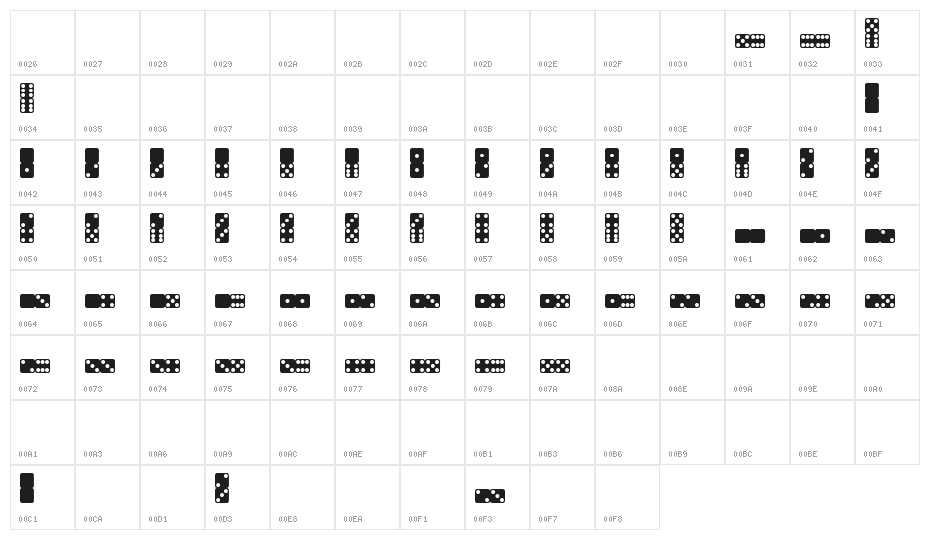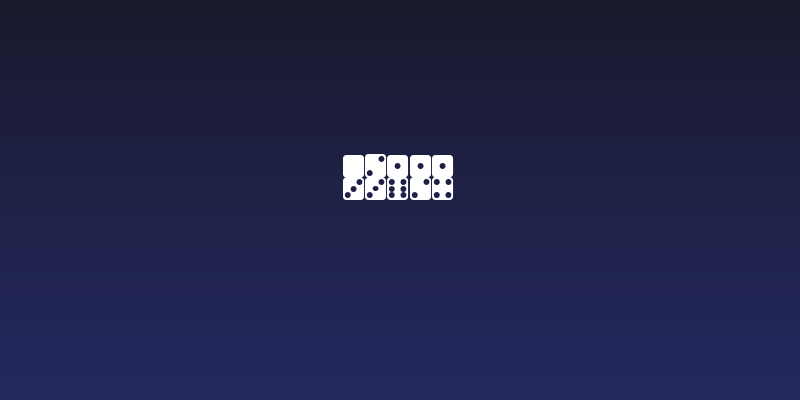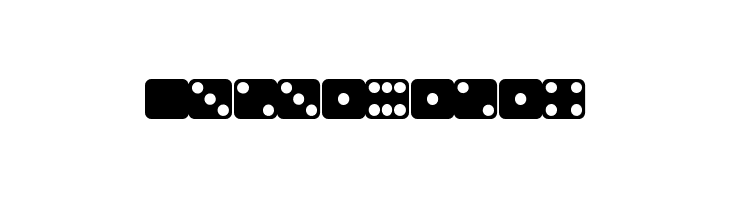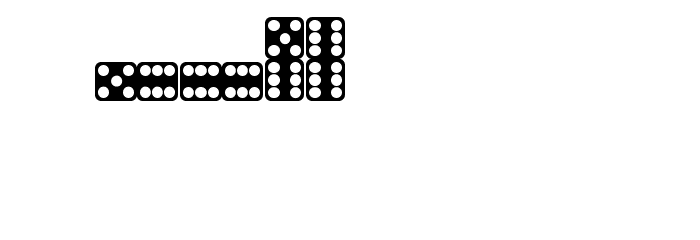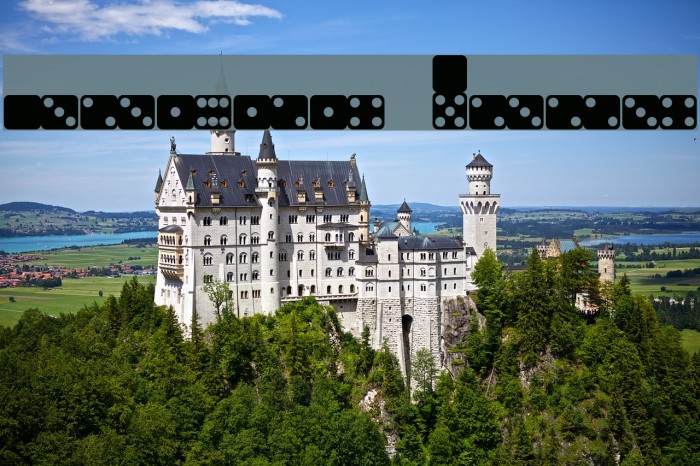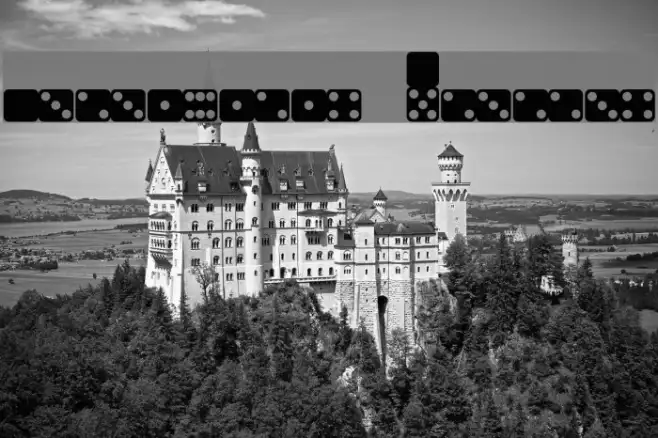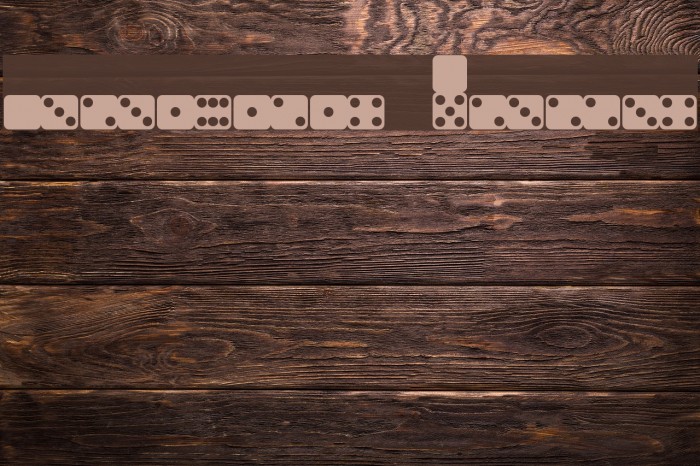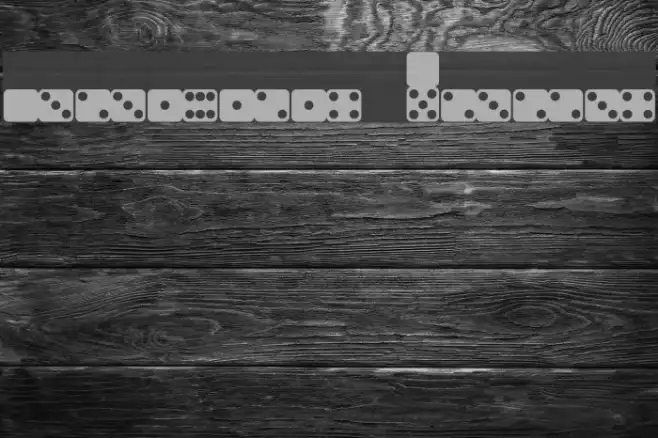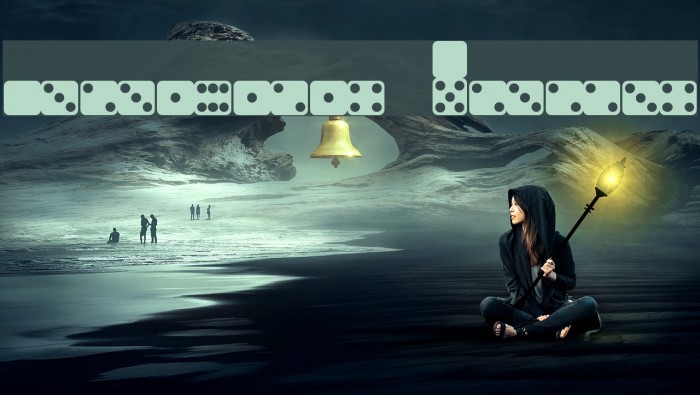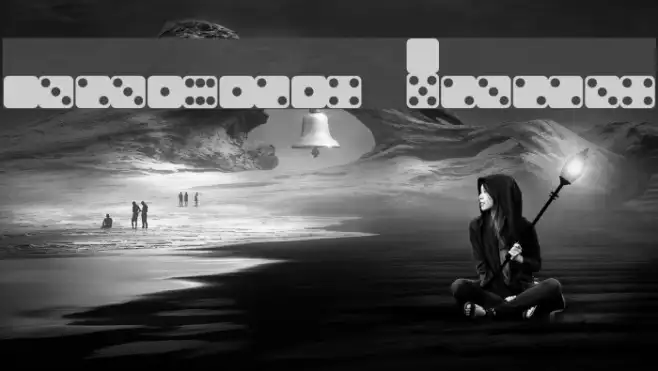
domik Font
domik Description
A playful decorative font where each character is represented as a domino tile, using dots to form the letter or number shapes within the domino format. The style is bold, geometric, and highly stylized, with consistent rounded corners and high contrast between the black background and white dots.
| Overall Style | Playful, Decorative, Thematic |
| Use Case | Logos, Headlines, Posters, Themed graphics |
| Proposed Projects | Board game branding, playful posters, children's books, themed party invitations, educational materials. |